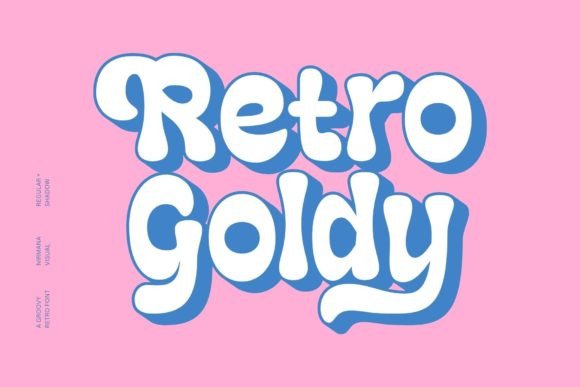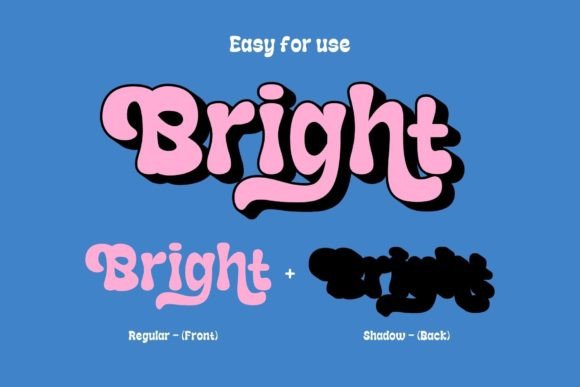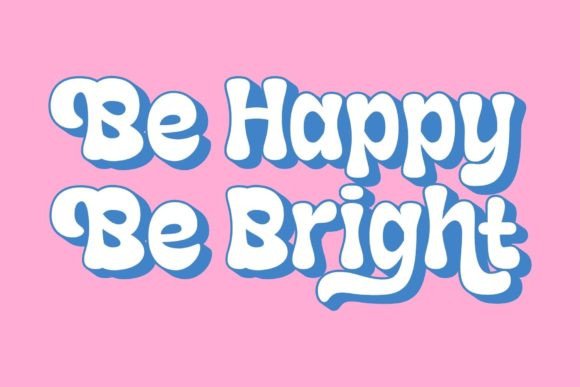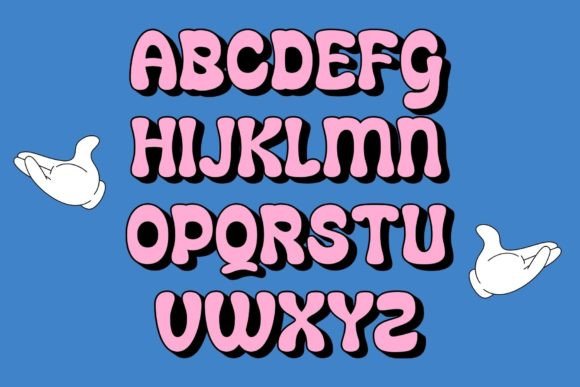
Retro Goldy Font
About the Retro Goldy Font
Elevate your designs with Retro Goldy Font, a font that combines sophistication with readability. Introducing our new retro-style font, designed to take you back to the good old days. With its bold and playful design, this font is perfect for creating eye-catching designs that evoke nostalgia and fun.
Inspired by the groovy typography of the 60s and 70s, this font features thick and rounded letterforms, playful curves, and a distinctly retro feel. Its versatility and legibility make it a great choice for a wide range of projects, from branding and packaging to posters and social media graphics.
This font comes in a variety of weights and includes a full set of upper and lowercase letters, numerals, punctuation marks, and special characters. Whether you’re looking to create a vintage logo, a retro poster, or a fun social media post, this font is sure to add a touch of retro charm to your designs.
Retro Goldy Font Usage Examples
Retro Goldy Font Example